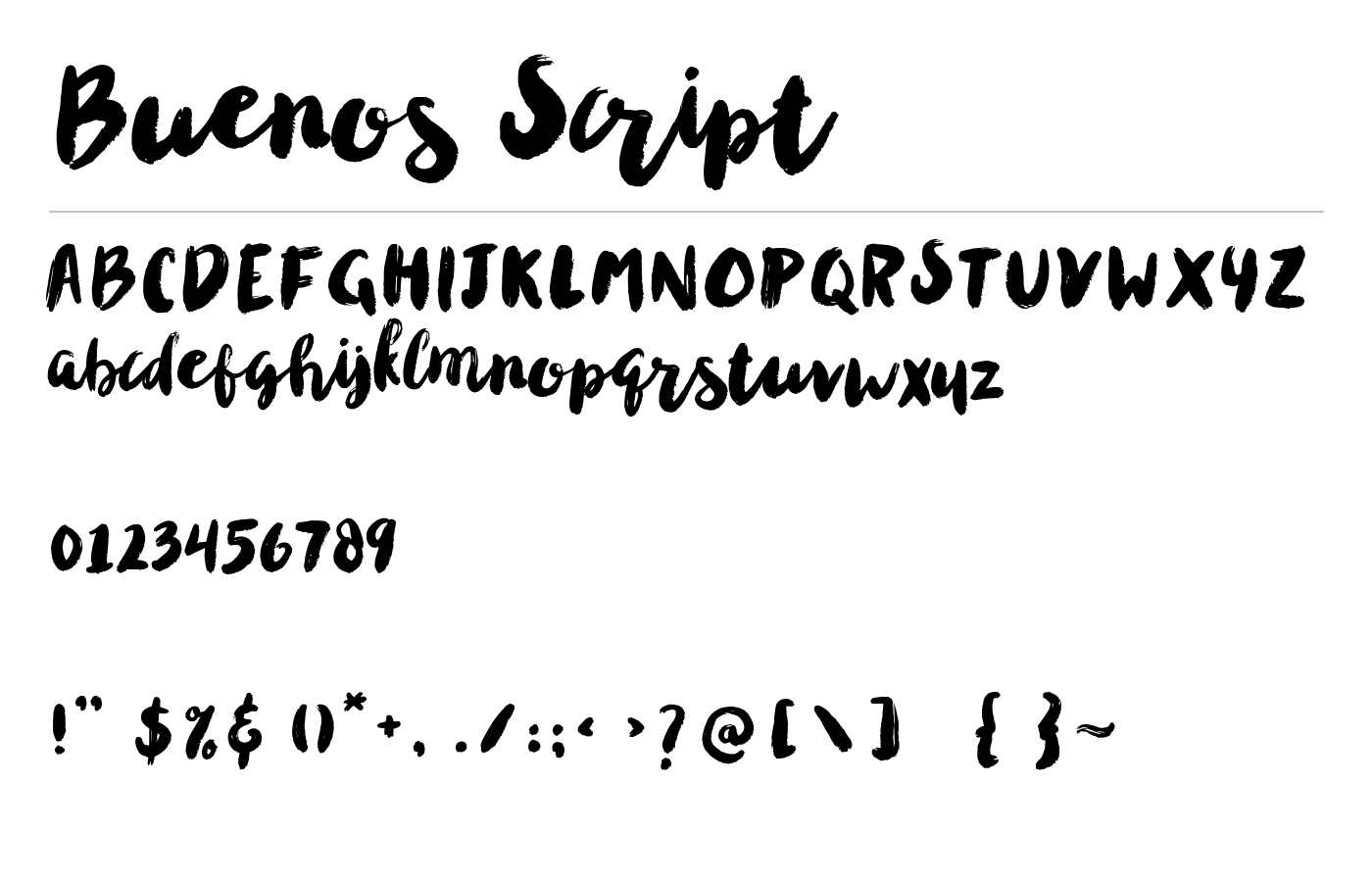
Buenos Script is a bold, brush-style script font that combines a casual, hand-painted feel with strong, energetic strokes. Its textured, irregular edges and lively letterforms make it perfect for adding a personal, artistic touch to branding, posters, and creative projects seeking a dynamic and approachable vibe. This font works well for headlines and display uses where a distinctive, expressive style is desired.
Buenos Script Font